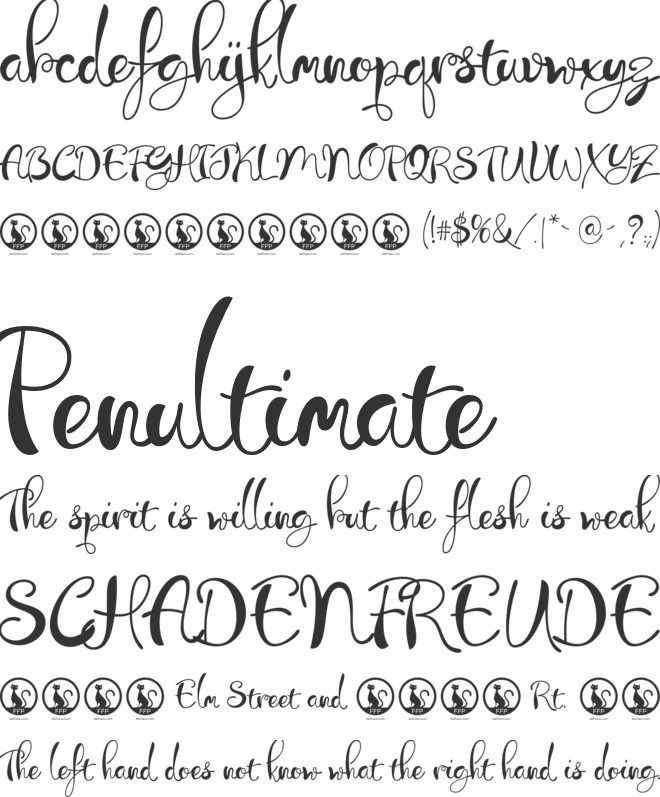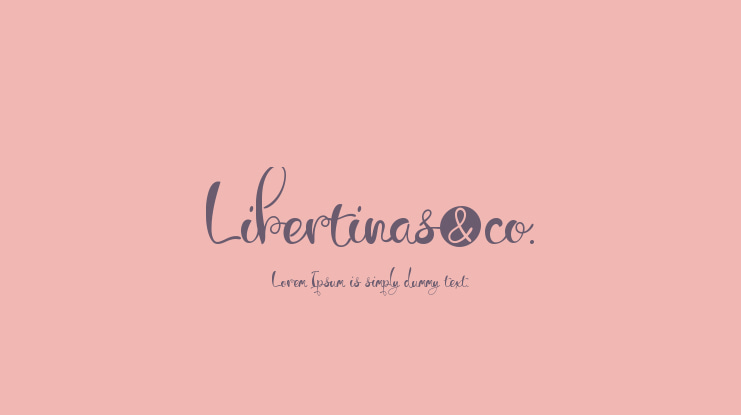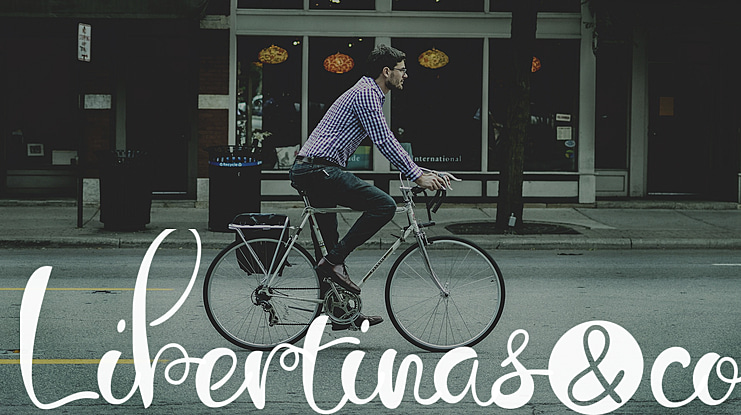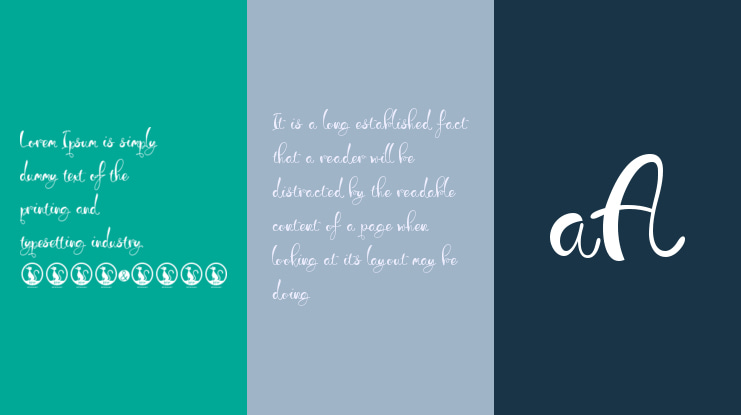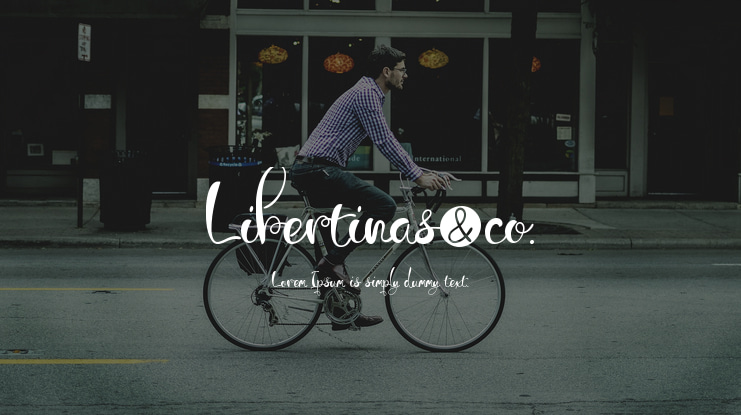
Libertinas-co. Font
Libertinas & co. is a handwritten typeface, with a casual, elegant and sensual style, with many possibilities to compose different titles, flyers, publications or typographic posters for example.
In the commercial version, the font has an extra set of capital letters and another one of decorative lowercase for word end, also 3 stylistic set with more alternative letters and many other Open Type functions. Includes the Bitcoin symbol.